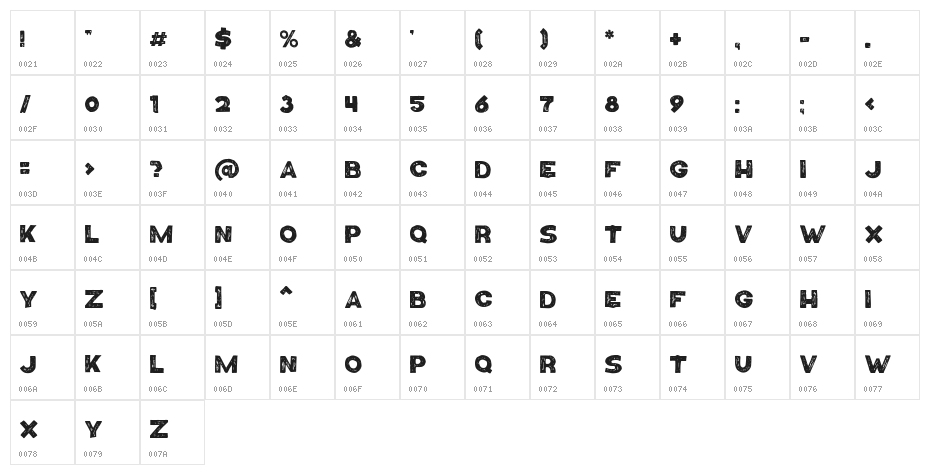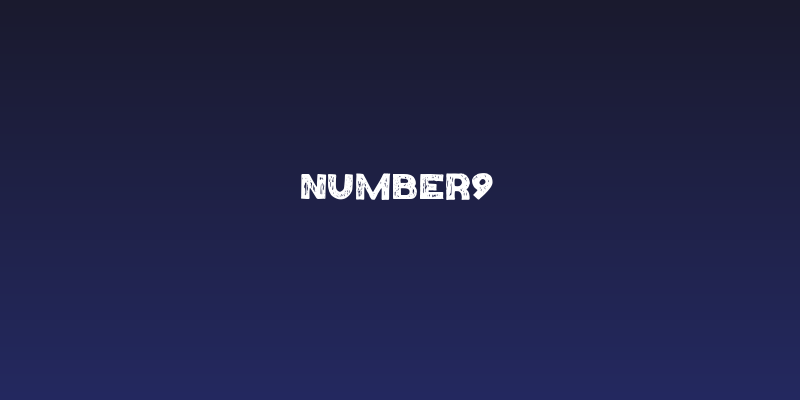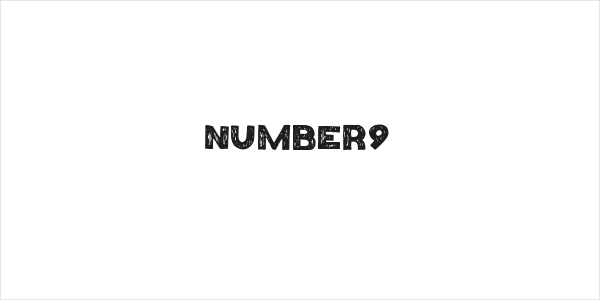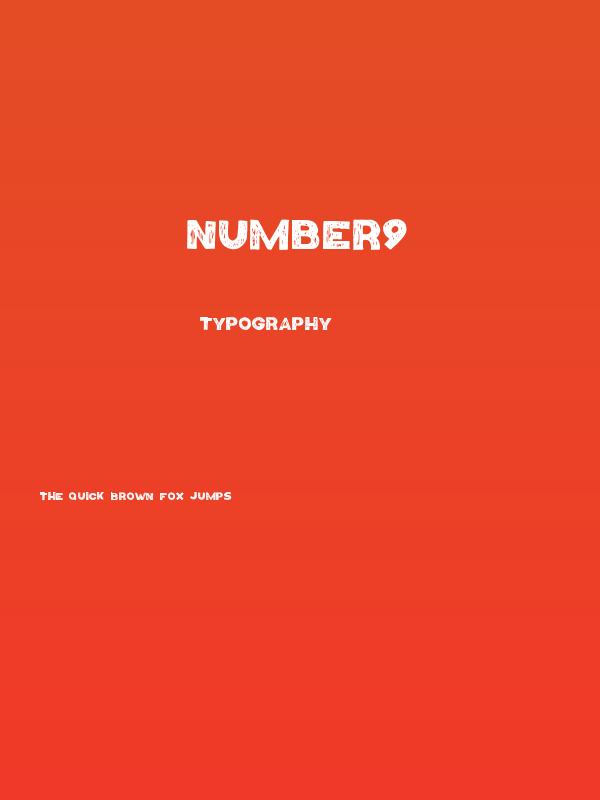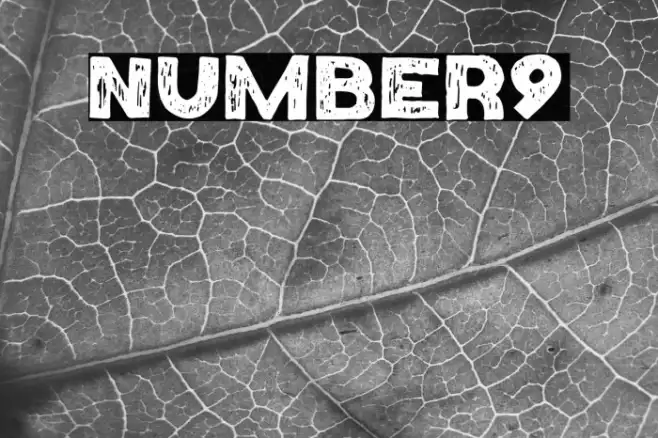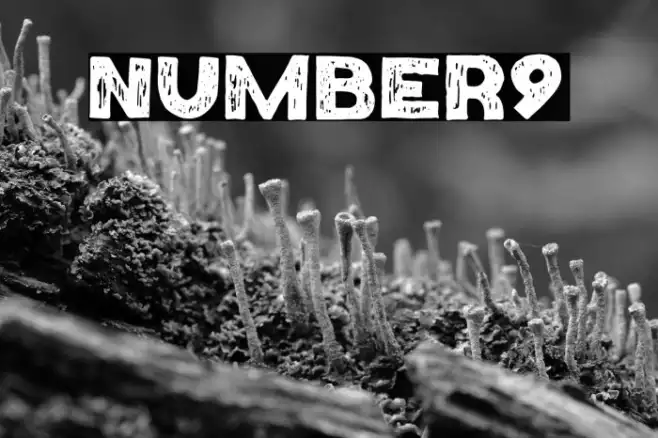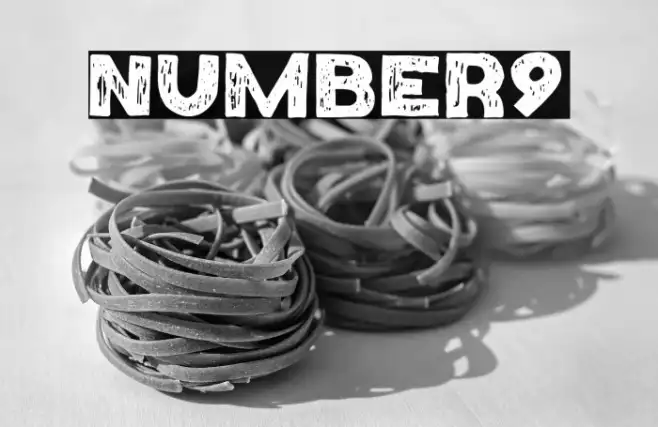
Number9 Font
Number9 Description
This font features a bold, distressed style with a rough, textured appearance, giving it a rugged and vintage feel. The uppercase and lowercase letters are consistent in their distressed detailing, which adds character and a handcrafted look. The numerals and special characters maintain this aesthetic, ensuring a cohesive design throughout. The font's boldness makes it stand out, while the textured effect adds depth and interest, making it ideal for projects that require a strong, eye-catching typeface.
| Proposed Projects | Ideal for posters, branding, packaging, and any design that requires a bold, vintage aesthetic. |